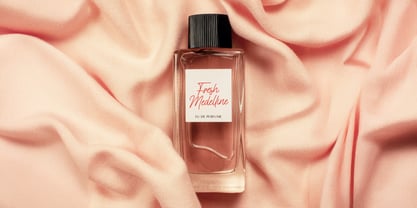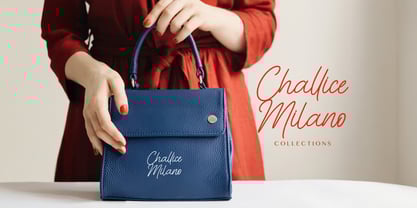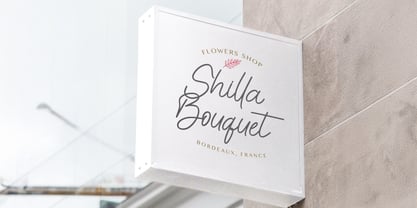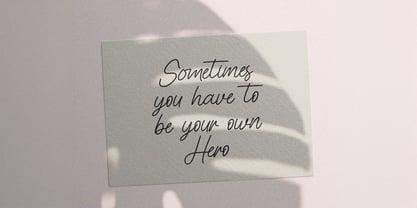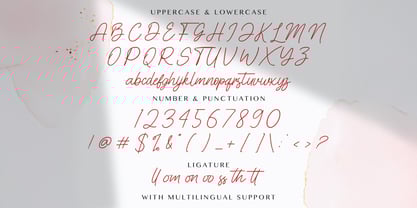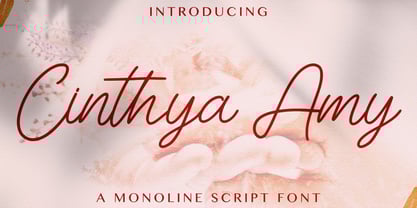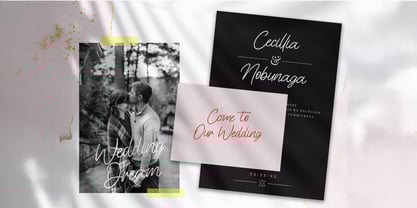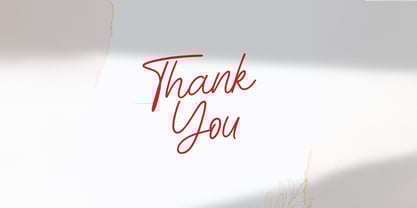
Cinthya Amy
La familia tipográfica Cinthya Amy fue diseñada por Virgiawan Listanto y publicada por Stringlabs Creative Studio. Cinthya Amy contiene 1 estilos.
Cinthya Amy is a stylish handwritten font with a soft, flowing rhythm and a touch of modern charm. Its elegant curves and smooth strokes make it perfect for projects that need a personal, feminine, and refined touch. Whether you’re designing for branding, invitations, or social media, Cinthya Amy adds a natural handwritten feel that’s both graceful and approachable.